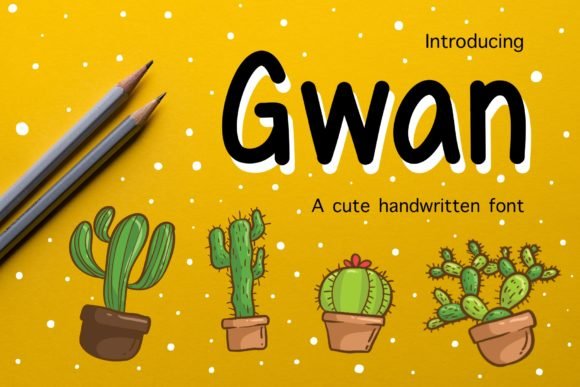
The Power of Handwritten Charm
Have you ever been brainstorming a new design project, only to have a spark of inspiration hit you in the most unexpected way? Maybe it was a beautiful hand-drawn sign in a quaint café, or a friend’s playful handwritten note. Whatever the trigger, you can’t help but feel drawn to the warmth and personality of handwritten text. That’s where the Gwan Font comes in – a sweet and friendly handwritten font that captures the essence of handwritten charm.
The Gwan Font is more than just a font – it’s a tool for designers to add a touch of personality to their work. With its natural and unique style, it’s incredibly versatile and can be used in a wide range of designs, from elegant wedding invitations to playful children’s books. Whether you’re a seasoned designer or just starting out, the Gwan Font is a valuable addition to your toolkit.
Gwan Font Key Features
- Unique Characteristics: Gwan Font features a distinctive, hand-drawn design with subtle texture and flair, giving it a unique and artistic feel.
Gwan Font Review
Overall, I was excited to dive into the Gwan Font and see what it had to offer. Here’s my honest take:
- The unique blend of modern and vintage elements is really striking.
- The font is highly legible, even at smaller sizes.
- It has a great range of weights, from light to bold, making it versatile for different applications.
- The font may not be suitable for all types of content, such as body text or long passages, due to its playful nature.
- The character set is not as extensive as some other fonts, which may limit its use in certain languages or special characters.
Overall, I think the Gwan Font is a great addition to any designer’s toolkit. While it may not be perfect for every project, it’s perfect for making a statement and adding some personality to your designs. Its unique look and feel make it a great choice for branding, advertising, and other applications where you want to stand out.
The Gwan Font is ideal for:
- Creative projects, such as graphic design and digital art.
- Branding and marketing materials, such as logos and business cards.
- Typographic designs, such as posters and flyers.
Alternatives to Gwan Font for Designers
1. Noto Sans
Noto Sans is a sans-serif typeface designed by Google. It’s suitable for body text and UI elements where readability is crucial. Noto Sans offers a wide range of languages support and is highly legible in various font sizes.
Comparison to Gwan Font: While Gwan Font is a more rounded and playful font, Noto Sans is more straightforward and clean. Noto Sans is ideal for projects requiring a neutral and professional tone, whereas Gwan Font is better suited for more creative and casual projects.
Lato is a sans-serif typeface designed by Łukasz Dziedzic. It’s perfect for headings and titles where a modern and elegant feel is desired. Lato is highly customizable and works well in various font sizes and combinations.
Comparison to Gwan Font: Lato is more geometric and modern compared to Gwan Font’s rounded feel. While Gwan Font is better suited for body text, Lato excels as a heading font due to its high contrast and visual appeal.
Open Sans is a sans-serif typeface designed by Steve Matteson. It’s highly legible and suitable for body text, UI elements, and even headings. Open Sans is highly customizable and works well in various font sizes and combinations.